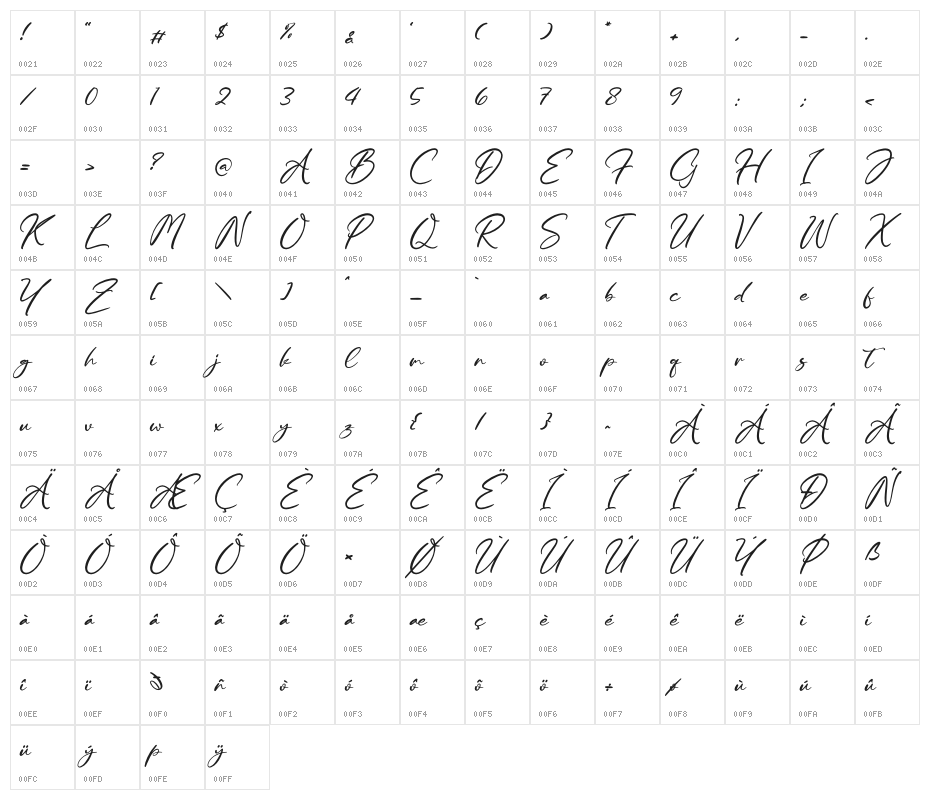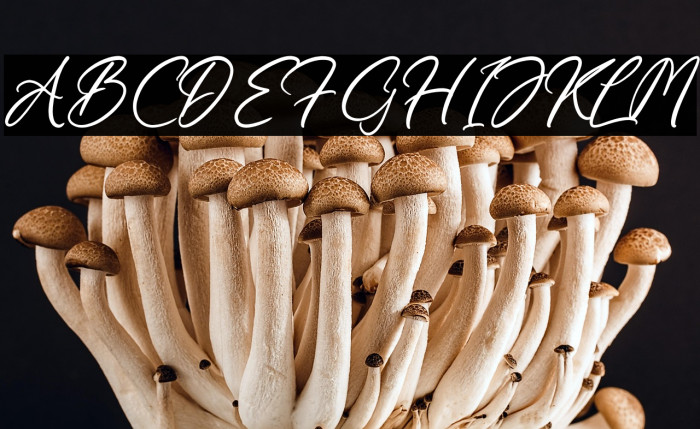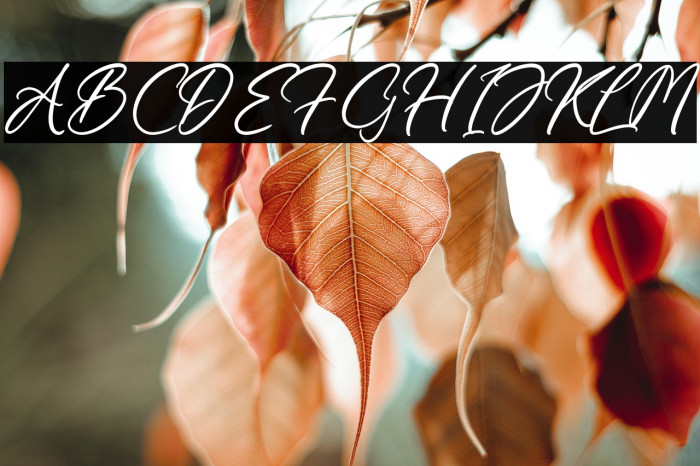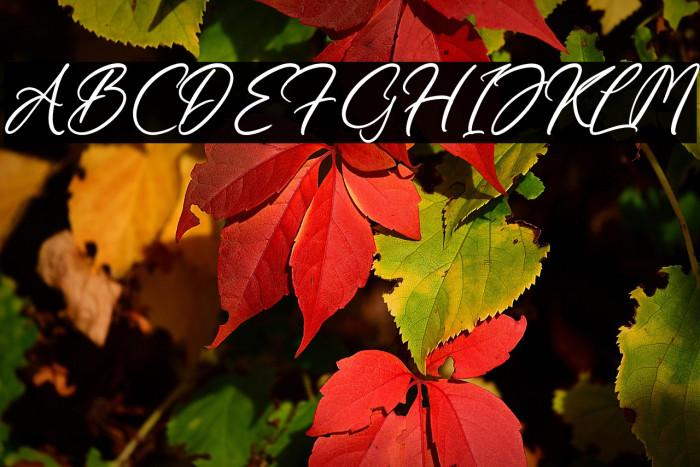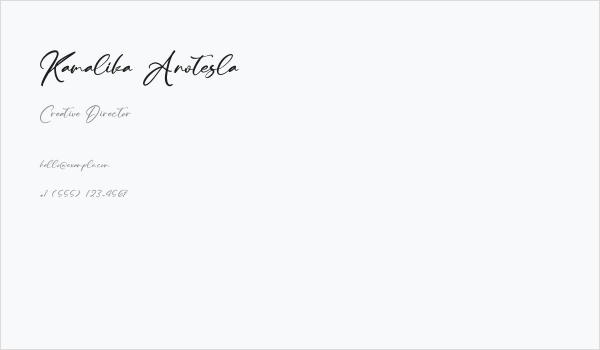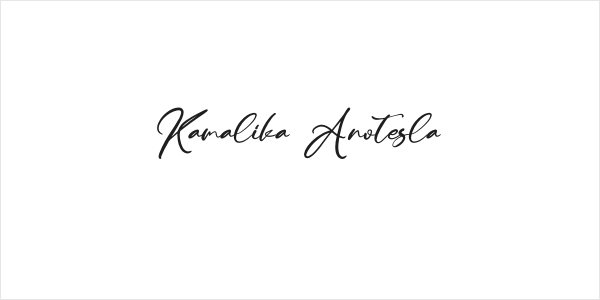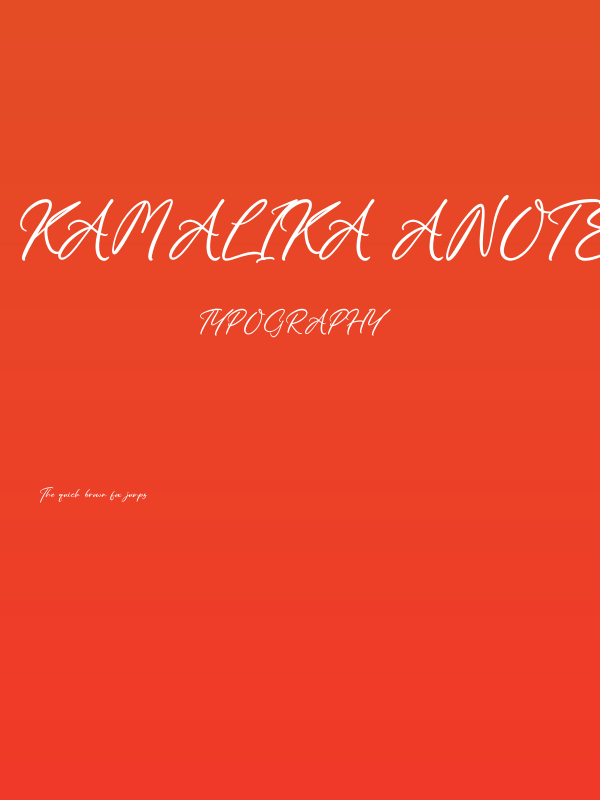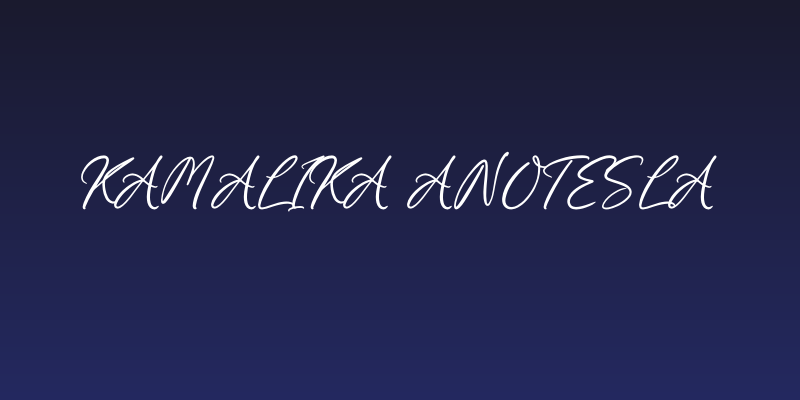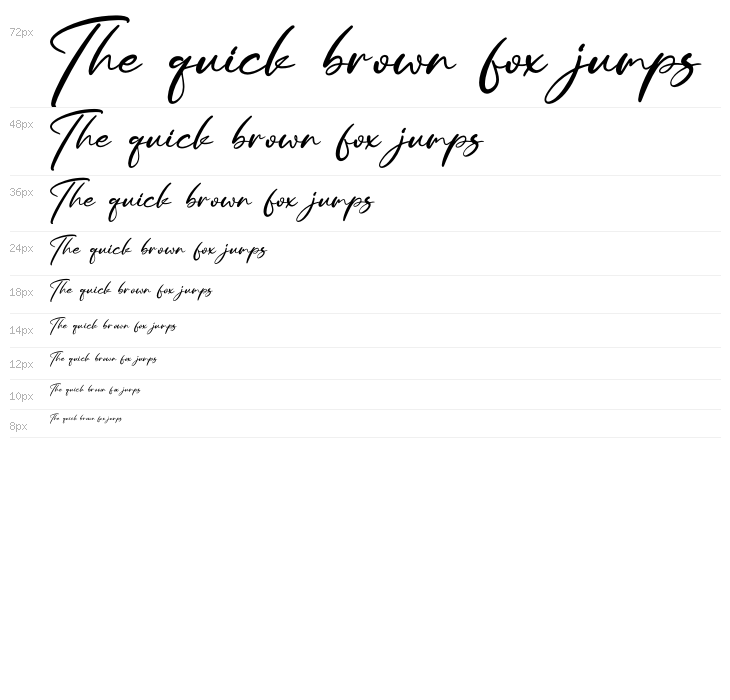
Kamalika Anotesla Font
Kamalika Anotesla Description
This font exudes elegance and fluidity, characterized by its cursive, handwritten style. The letters are gracefully connected, creating a seamless flow that mimics natural handwriting. The uppercase letters are slightly more elaborate, with sweeping curves and loops, while the lowercase letters maintain a consistent, smooth appearance. The numerals and special characters are crafted with the same attention to detail, ensuring a cohesive look across all elements. The overall design is both sophisticated and approachable, making it suitable for a variety of creative applications.
| Overall Style | Elegant, Handwritten |
| Proposed Projects | Ideal for wedding invitations, greeting cards, personal branding, and elegant logos. |